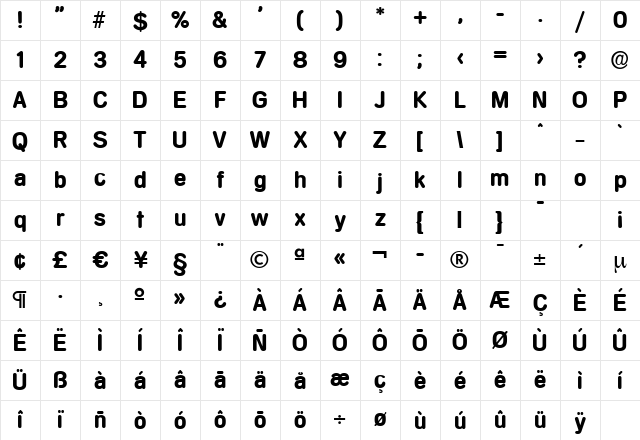
AndreasBecker Bold Free Font
AndreasBecker Bold
AndreasBecker Family
Design Context for AndreasBecker
AndreasBecker is a composed and adaptable typeface that performs quietly and consistently across a wide range of design contexts. Its bold stroke weight gives it real presence on the page.
Pro Tip: Use AndreasBecker in both headline and body roles to test its range before committing to a single application.